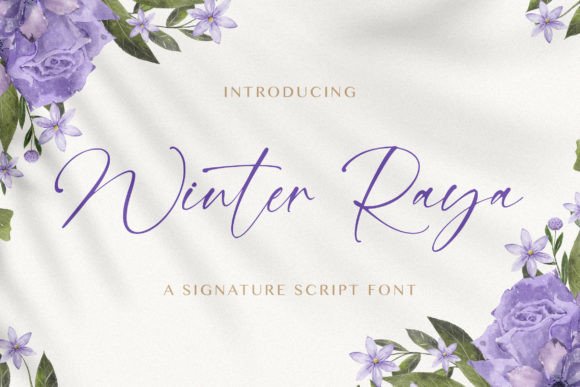
Unleash the Enchantment of Winter Raya: A Script Font that Captivates
Welcome to the realm of Winter Raya, a script font that weaves a spell of elegance and charm. Its delicate strokes, reminiscent of a gentle winter breeze, dance across your designs, leaving a trail of visual intrigue. Experience the allure of this handcrafted masterpiece that will transform your creative visions into captivating realities.
Winter Raya's inherent gracefulness makes it the perfect choice for those seeking a touch of sophistication. Its flowing lines and sweeping curves add an air of refinement to any project, whether it's a wedding invitation, a heartfelt letter, or an enchanting logo. Immerse yourself in the beauty of this script font and let your imagination soar.
With its versatility, Winter Raya effortlessly adapts to a myriad of design styles. Its timeless charm finds harmony in both digital and print mediums, allowing you to create stunning visuals that leave a lasting impression. Elevate your social media posts, website designs, and branding materials with the elegance of Winter Raya.
A Love Story in Every Character
Winter Raya is more than just a font; it's an expression of love, meticulously crafted by hand. Each letter, each stroke, is infused with the passion of its creator, StringLabs. Their dedication to detail shines through in the font's intricate flourishes and graceful curves. Embrace Winter Raya and let it carry your message with a touch of heartfelt emotion.
The Perfect Canvas for Your Creative Expression
Winter Raya is the ideal companion for your creative journey. Its versatility allows you to explore a boundless range of projects, from personal designs to professional endeavors. Create eye-catching logos that command attention, design stunning posters that tell a story, or craft enchanting invitations that set the tone for an unforgettable event. Winter Raya is your muse, ready to transform your ideas into tangible works of art.
A Font That Inspires and Empowers
With Winter Raya at your fingertips, you'll discover a new level of creative freedom. Its enchanting nature inspires you to push boundaries and explore uncharted design territories. Embrace the magic of this script font and witness the transformation it brings to your projects. Winter Raya is more than just a font; it's a gateway to a world of endless creativity.